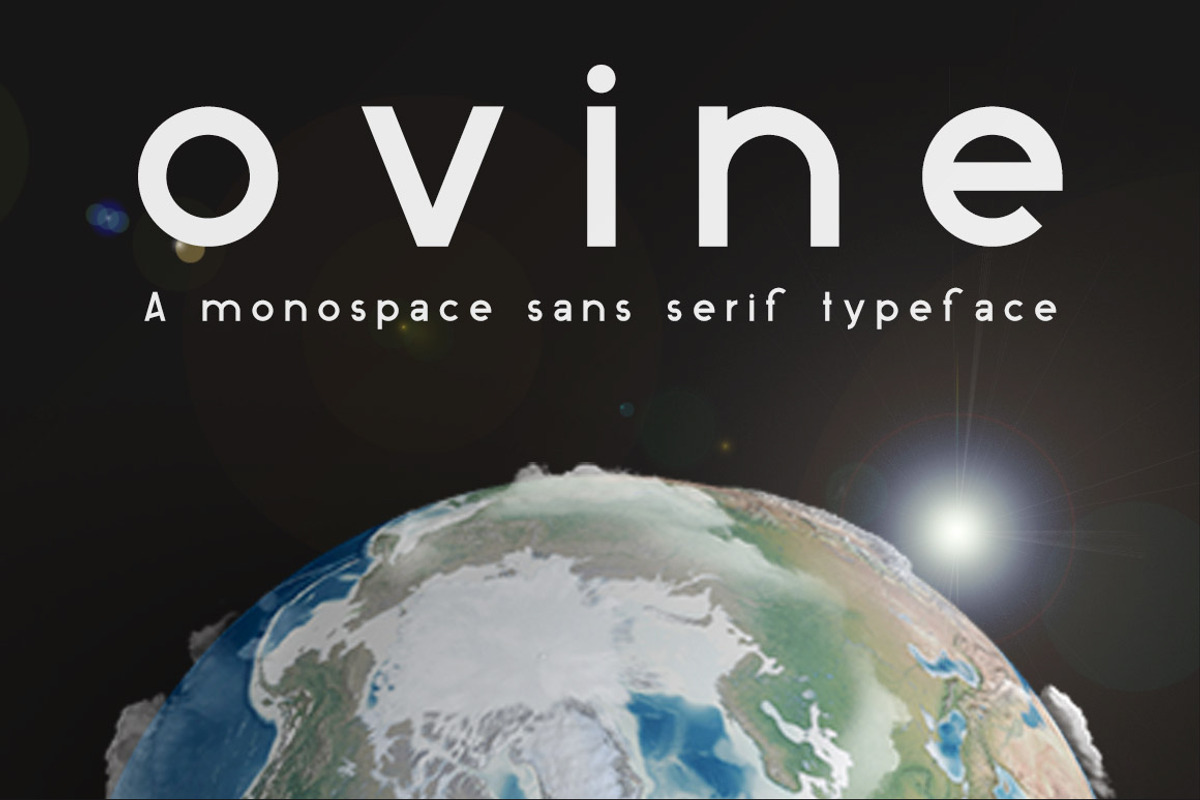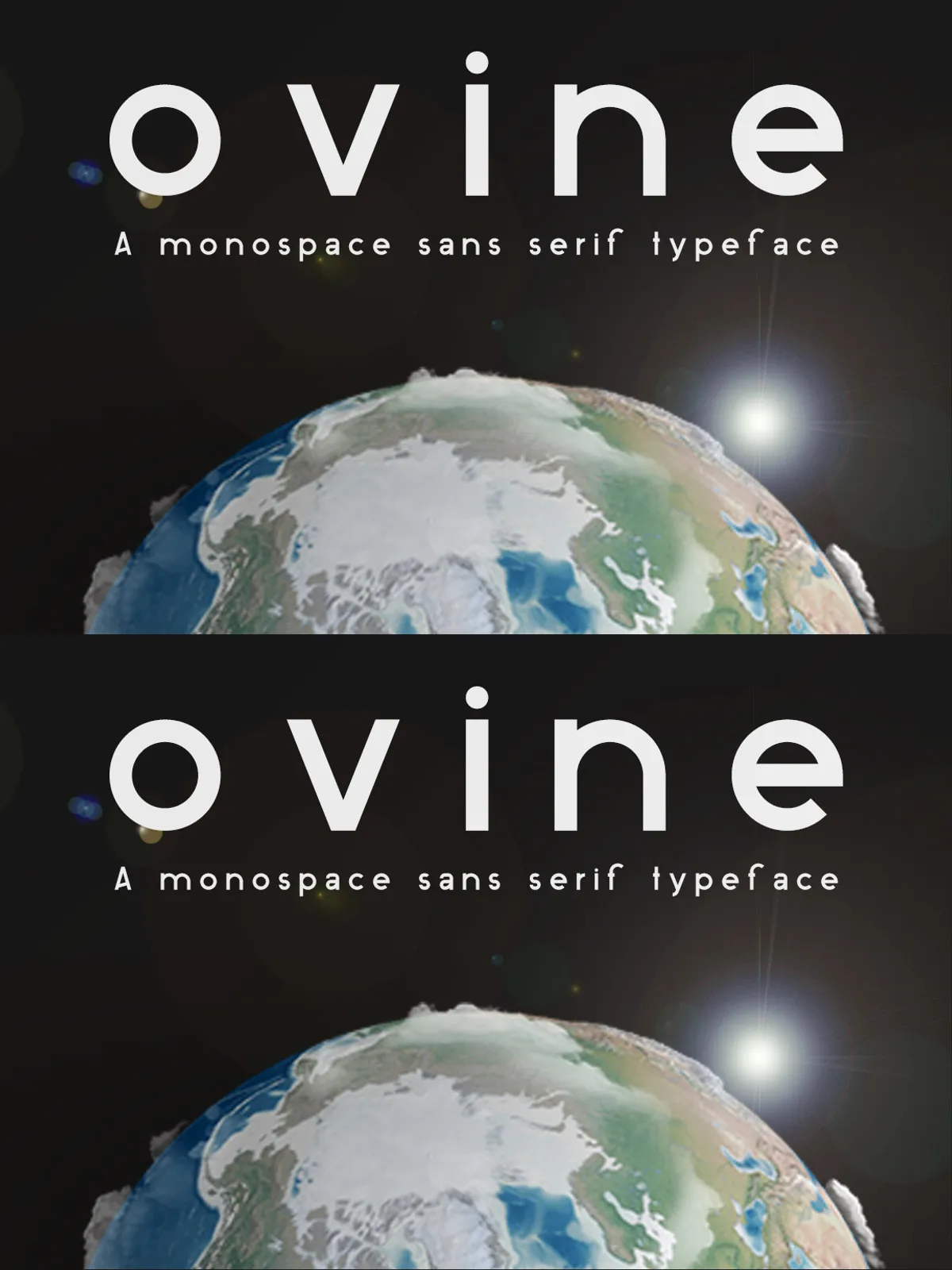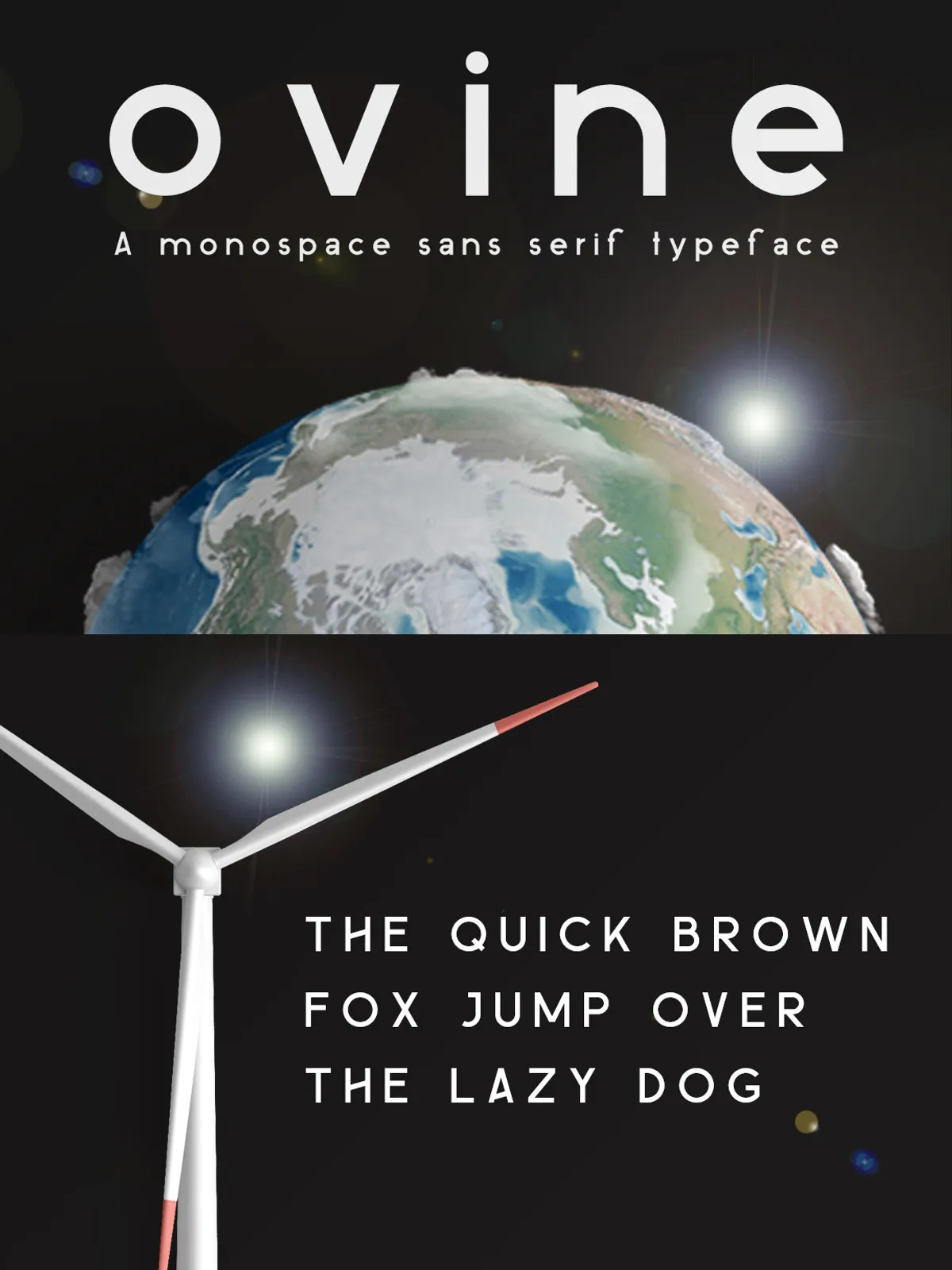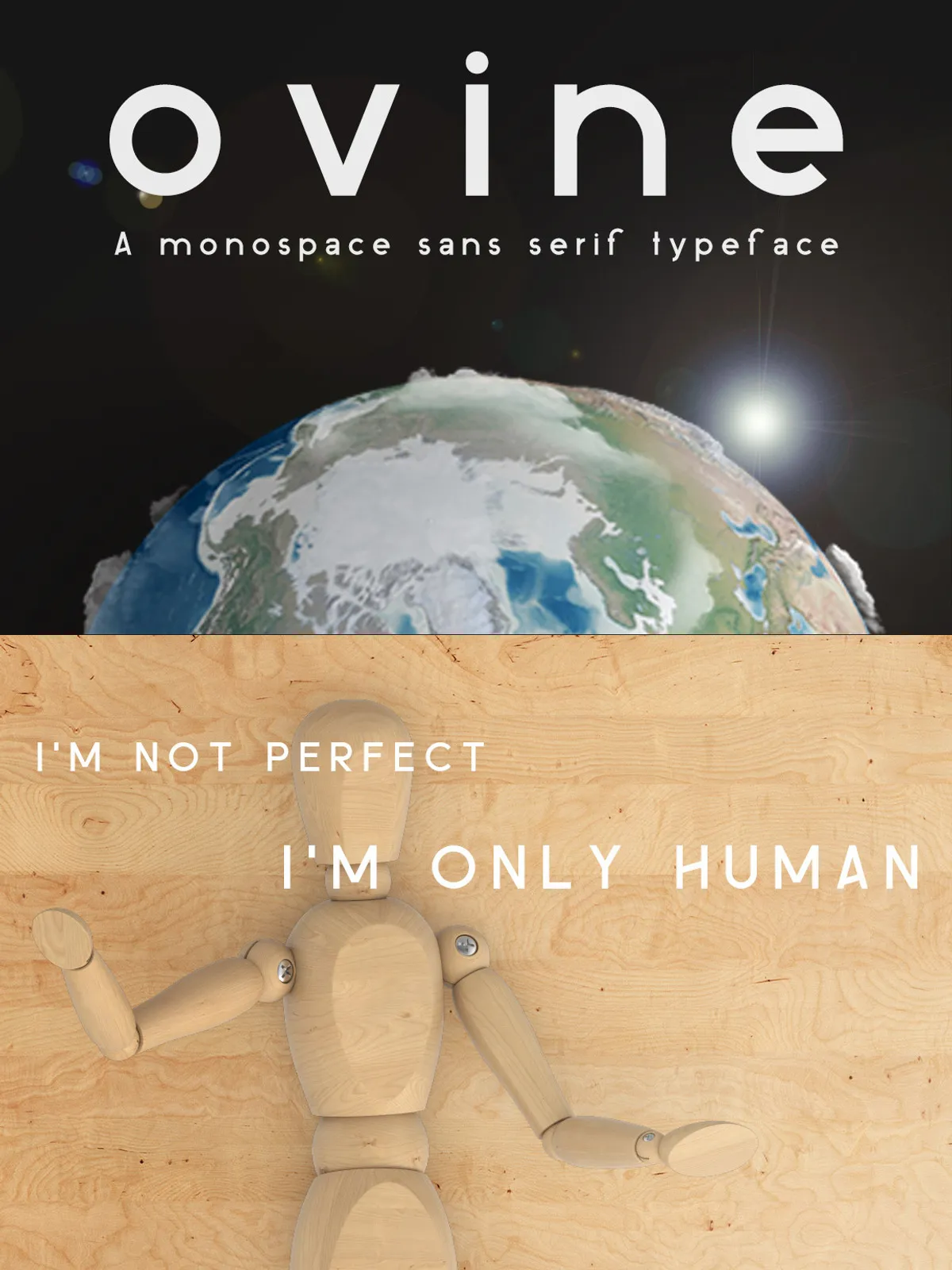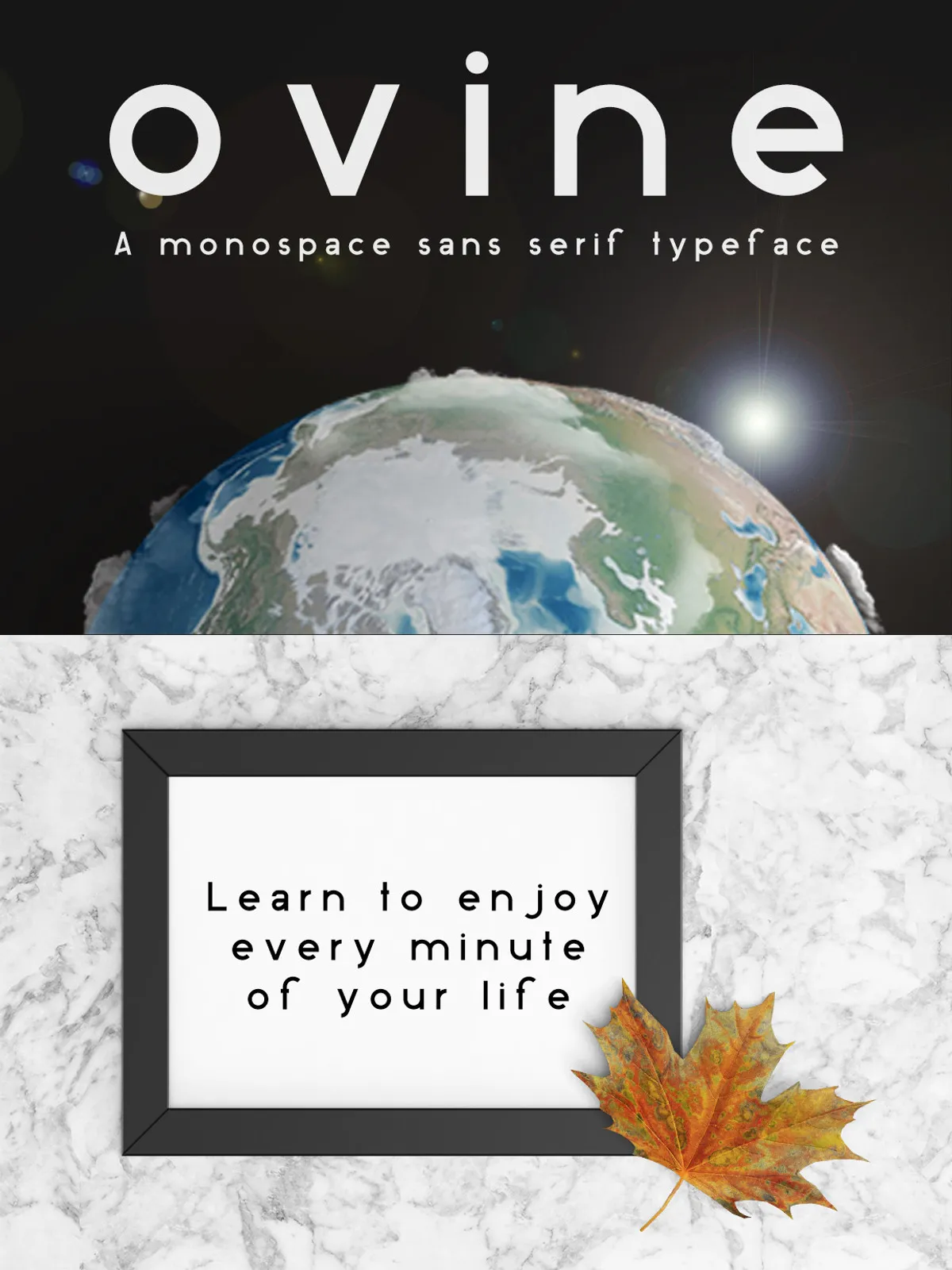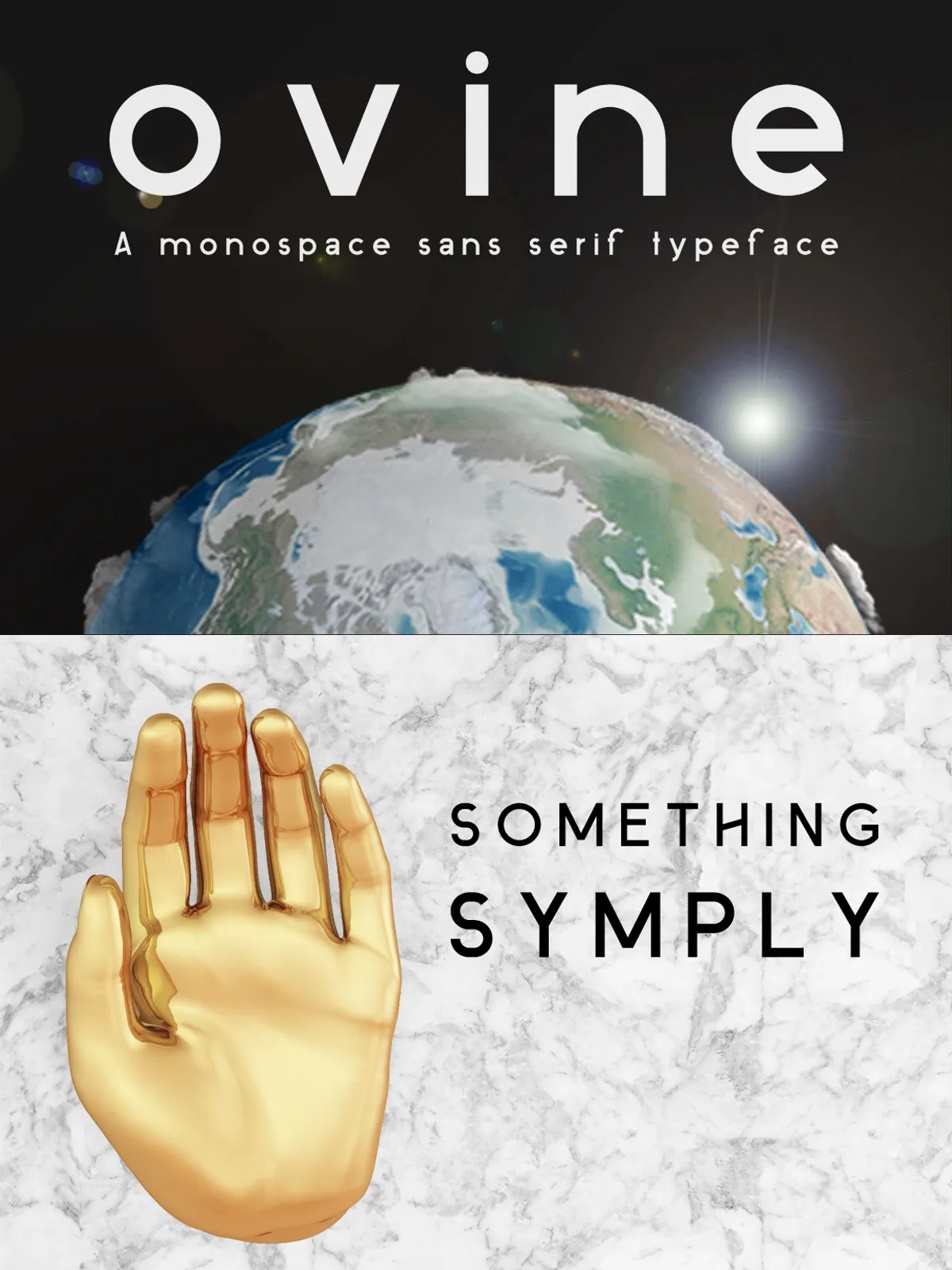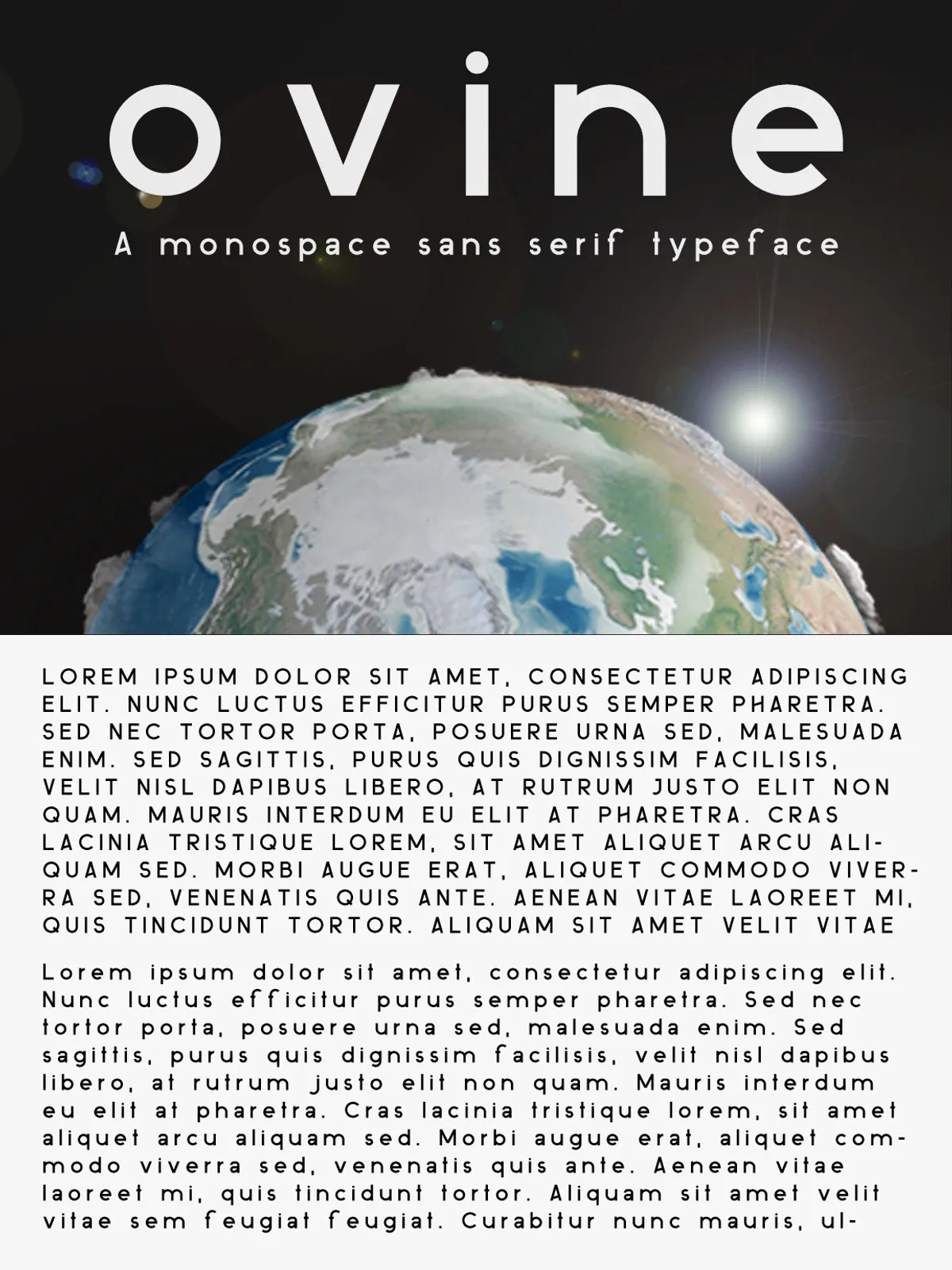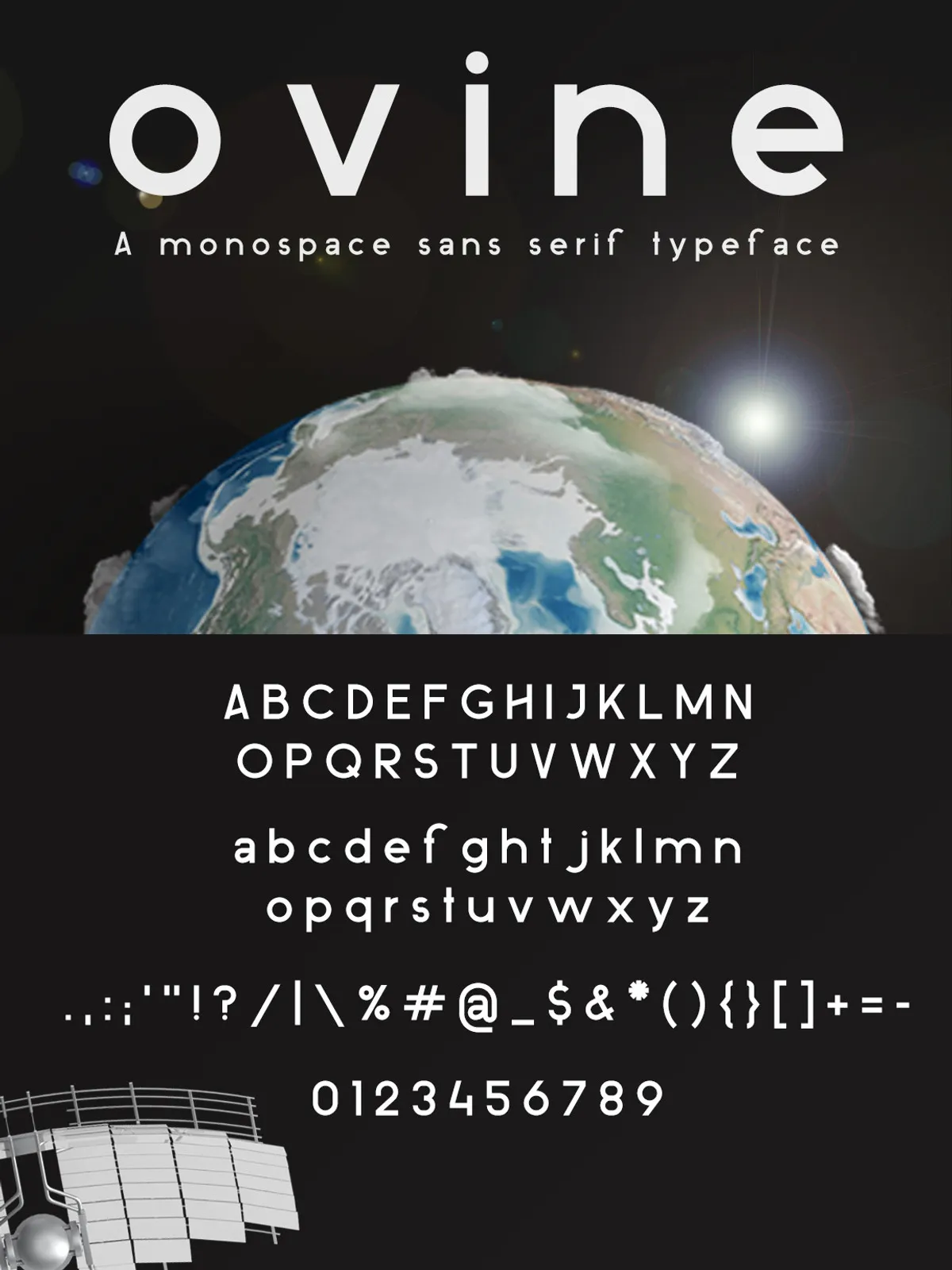
ovine Monospace Sans Serif Typeface
Introducing Ovine — a sophisticated sans serif typeface that merges geometric precision with serene minimalism. Designed with a distinctive butt cap aesthetic, Ovine delivers a look that’s both relaxed and intentional. Its clean lines, gentle curves, and thoughtful spacing invite clarity, calm, and a sense of quiet confidence — perfect for creators who value space, form, and function in equal measure.
Every character in the Ovine font family is built on a foundation of **perfect geometry** — circles and straight lines harmoniously blended. The result? A typeface that feels both futuristic and timeless. Whether used as a bold header or as readable body text, Ovine maintains an effortless balance between style and legibility.
Designed for Calm, Built for Impact
Ovine isn’t just clean — it’s intentionally spaced. The generous letter and word spacing give your text a breathable, airy quality that reduces visual fatigue and elevates the reading experience. This makes Ovine ideal for projects that demand both aesthetic discipline and clarity.
Use Ovine to:
• Create serene brand identities for wellness, lifestyle, or tech-forward startups
• Design minimal yet powerful headers and display text in digital and print media
• Build UI/UX experiences with a calm, modern tone
• Craft content-rich websites or publications with enhanced readability
• Express futuristic ideas with a minimal, distance-aware aesthetic
• Futuristic Minimalism at Its Finest
Ovine draws inspiration from science, design, and quiet confidence. The clean, open forms evoke a sense of distance — not isolation, but deliberate clarity. It feels like a quiet moment in a high-tech world: calm, intentional, and profoundly modern.
• Perfect for Minimal Style Displays
Want to say more with less? Ovine is built for that. Its single-stroke design and well-proportioned kerning ensure consistent, clean alignment — whether used in a one-word logo, a title card, or a full-body text block.
• Highly Readable in Any Context
Don’t sacrifice legibility for style. Ovine is engineered to be easy on the eyes, even at smaller sizes. Its clear character contrasts and balanced spacing mean your message stays sharp and accessible on screens and paper alike.
Complete Character Set – Built for Global Creativity
Ovine includes essential support for international design needs:
• Standard English alphabet: A–Z (uppercase), a–z (lowercase)
• Numbers: 0–9
• 27 symbols & punctuation marks (including arrows, brackets, and special math symbols)
• 3 carefully designed ligatures for a smoother, more natural reading flow
Whether you’re designing a Japanese-style packaging label, a German-language brochure, or an American tech website, Ovine adapts with grace and consistency.
Flexible Use Across Projects
Choose typography that doesn’t just look good — it feels right. Whether you’re crafting a minimalist poster, designing a brand identity, or building the next calm digital experience, Ovine is your go-to font for clean, modern, and emotionally balanced design.